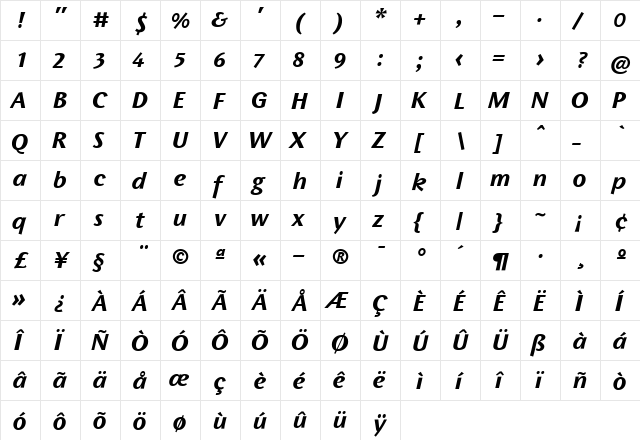
Wunderlich Bold Italic
| Foundry | Copr. Martin Wunderlich, FontShop International |
Design Context for Wunderlich Typeface
Wunderlich takes a measured approach to typography — its balanced proportions and neutral character make it a reliable workhorse for both digital and print work. The dynamic lean of this cut emphasises speed and emphasis in any layout. The heavy weight commands attention and anchors typographic hierarchies.